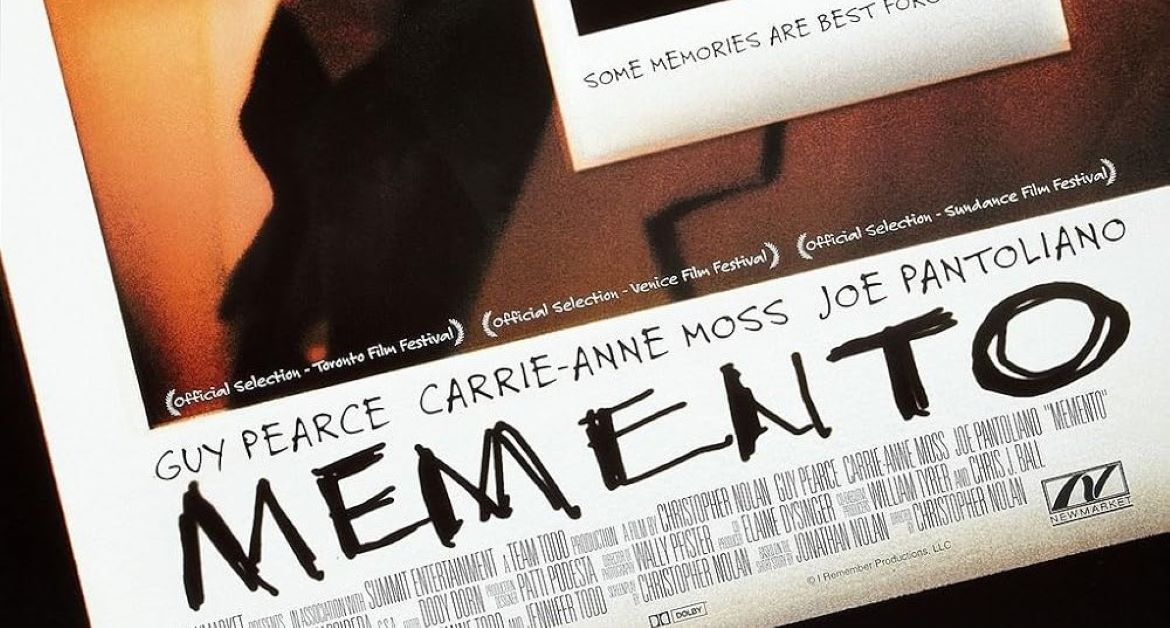
Memento Font
Memento Font shatters typographic conventions through deliberately fragmented, distressed letterforms that mirror psychological disintegration. This typography embodies narrative chaos and memory’s unreliability, providing designers with a visceral tool for projects exploring themes of confusion, obsession, and fractured reality.
Unlike polished Hollywood serifs, the Memento font leans into a distressed, handwritten look. Its uneven texture captures the film’s themes of confusion and obsession, making the words feel unstable—just like the story itself.
Memento Font dominates psychological thriller posters, true crime podcasts, underground music albums, and avant-garde art projects. Its weathered authenticity communicates urgency and instability without artifice.
The Memento Font proves imperfection can be profoundly expressive. Like scattered Polaroids across a motel room, this typography forces viewers to piece together meaning from beautiful disorder, demonstrating that broken letters can tell the most honest stories.